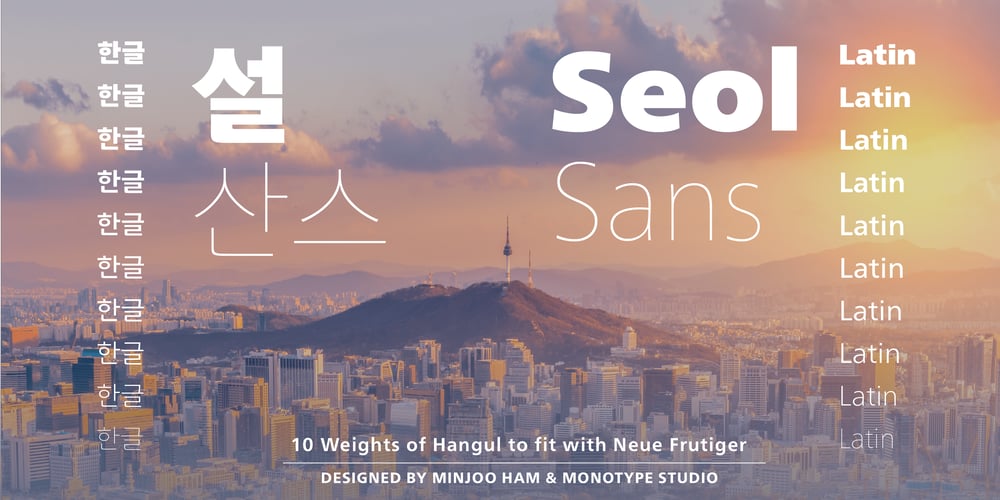
Seol Sans Font Family was designed by Adrian Frutiger, Akira Kobayashi, Minjoo Ham, Monotype Design Studio and published by Monotype. Seol Sans contains 10 styles and family package options. The Seol Sans design offers a fresh palette for designers working with the Korean alphabet, particularly those looking to pair Latin and Korean alphabet (or Hangul) forms without creating typographic friction. The choices for Hangul fonts that work well with humanist Latin typefaces are limited. As Monotype’s first original Korean design, the Seol Sans typeface is a humanist take on the traditional rigid and hard designs of Hangul characters. The Seol Sans design more closely resembles the natural curve of hand-written characters. Seol Sans features Neue Frutiger for its Latin glyphs, and works harmoniously with Neue Frutiger World and Monotype’s CJK typefaces: Tazugane Gothic (Japanese) and M XiangHe Hei (Chinese). Seol Sans is a great choice for global brands using a Sans Serif design looking to maintain their visual identity, and communicate with a consistent tone of voice in the Korean market. Seol Sans has over 18,000 glyphs, and supports the Adobe-Korea1-2 and KS X 1001:2004 character sets.